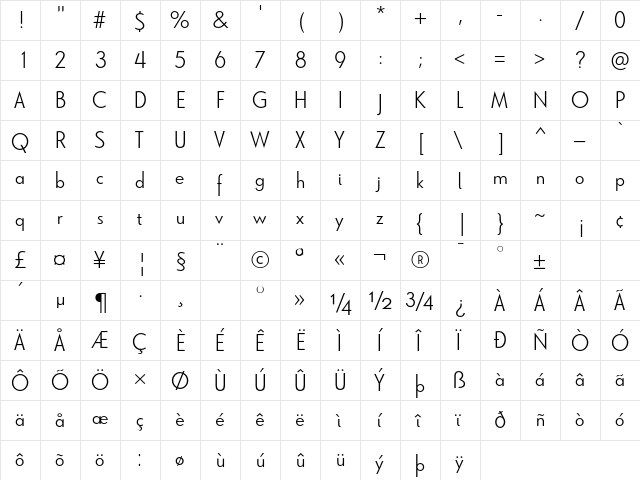
Le Havre Light Light
Design Context for Le Havre Light Typeface
Le Havre Light is a composed and adaptable typeface that performs quietly and consistently across a wide range of design contexts. Its slender proportions lend an understated elegance to any composition.
Pro Tip: Pair Le Havre Light with a font of contrasting weight or personality to build a more expressive typographic hierarchy.